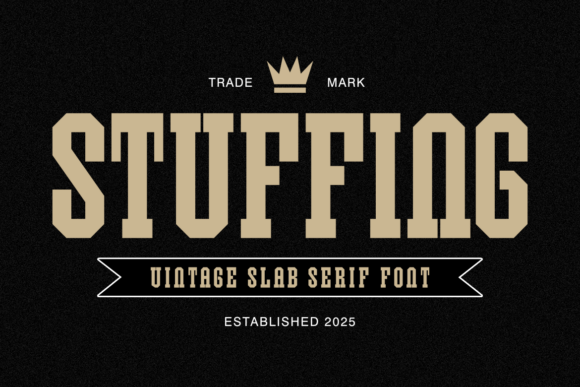
Stuffing: The Vintage Slab Serif Font Redefining Holiday and Brand Typography
In the vast landscape of digital typography, few typefaces manage to capture a specific era while remaining perpetually relevant across diverse industries. Stuffing is one such font. It is a robust Vintage Slab Serif that delivers a bold, authoritative presence with a distinctive retro flair. For designers, marketers, and creatives looking to make an immediate impact, understanding the unique characteristics and applications of this typeface is essential. Whether you are crafting a Thanksgiving T-shirt or designing a premium craft beer label, Stuffing offers a weighty structure reminiscent of classic college sports team lettering and traditional American signage.
The Anatomy of a Vintage Slab Serif
To truly appreciate the utility of Stuffing, one must first understand the category it inhabits. A slab serif, also known as an Egyptian font, is characterized by thick, block-like serifs—those small lines attached to the end of a stroke in a letter. Unlike the delicate, tapered serifs found in traditional fonts like Times New Roman, slab serifs are heavy and uniform. This gives them a sense of stability, strength, and permanence.
Stuffing takes these foundational principles and amplifies them. Its design features incredibly thick, powerful serifs and a condensed, weighty structure. When you look at the letters, they feel grounded and unshakeable. This visual weight is not just an aesthetic choice; it serves a functional purpose. In a crowded visual environment, such as a busy social media feed or a packed billboard, Stuffing demands attention. It cuts through the noise, ensuring that the message is read instantly and remembered.
Why "Vintage" Matters in Modern Design
The term "vintage" often conjures images of nostalgia, but in the context of modern graphic design, it represents authenticity. Consumers today are increasingly drawn to brands and products that feel established and genuine. They crave a connection to history and tradition. Stuffing taps into this psychological desire perfectly. Its old-school, impactful headline style evokes the golden age of American advertising and collegiate culture.
This isn't merely about copying the past; it is about leveraging the emotional resonance of historical design trends. When a brand uses a font like Stuffing, it signals reliability and heritage. It suggests that the product has been around for a long time, even if it was launched yesterday. This "crowned trade-mark style" gives projects a premium, established look that generic sans-serif fonts simply cannot achieve.
Mastering the Print-on-Demand Market
One of the most significant practical applications for Stuffing lies within the booming Print-on-Demand (POD) industry. The name "Stuffing" itself is a clever nod to high-demand seasonal niches, specifically Thanksgiving and holiday apparel. In the world of e-commerce, timing and relevance are everything. As autumn approaches, millions of shoppers search for family-themed apparel, humorous dinner shirts, and festive gifts.
Designers who utilize Stuffing for these projects gain a distinct advantage. The font's playful yet sturdy nature makes it perfect for creating fun, family-themed designs. Imagine a T-shirt that reads "MOM'S STUFFING IS THE BEST" in this bold typeface. The heavy lettering conveys confidence and humor simultaneously. It feels like a classic slogan from a decades-old family tradition, which is exactly the vibe customers are seeking during the holidays.
- Seasonal Relevance: The name immediately triggers associations with food and celebration, making it an intuitive choice for holiday campaigns.
- Readability on Fabric: Because the strokes are thick, the text remains legible even when printed on textured fabrics like cotton blends or fleece hoodies.
- Versatility: While perfect for Thanksgiving, the font works equally well for Halloween ("Spooky Season"), Christmas, and general autumn aesthetics.
Beyond the Holidays: Commercial and Branding Applications
While its name suggests a seasonal focus, limiting Stuffing to holiday designs would be a mistake. Its exceptional versatility makes it an indispensable tool for a wide array of commercial projects. The font's authoritative presence translates beautifully into branding for businesses that want to project strength and tradition.
Craft Beverages and Culinary Labels
The craft beer and liquor industry relies heavily on packaging that tells a story. Labels need to stand out on shelves lined with competitors. Stuffing is an exceptional choice for these labels because it mimics the typography found on classic bottle caps and vintage bar signs. A stout beer named "Midnight Stout" or a spicy hot sauce labeled "Devil's Kick" gains instant credibility when presented in this typeface. It suggests a recipe passed down through generations, enhancing the perceived value of the product.
Sports Merchandise and Team Lettering
As mentioned earlier, the font is reminiscent of classic college sports team lettering. This makes it ideal for independent sports leagues, local gyms, and fitness brands. If you are designing merchandise for a local football team or a marathon running club, Stuffing provides that authentic athletic aesthetic. It captures the spirit of competition and camaraderie without needing to infringe on trademarked university logos. The boldness of the font mirrors the energy and physicality of sports, making it a natural fit for jerseys, banners, and event posters.
By understanding the unique qualities of this Vintage Slab Serif, designers can create work that resonates deeply with audiences. It bridges the gap between the old-world charm of traditional American signage and the dynamic needs of modern commerce. Whether you are a seasoned professional looking to expand your typographic toolkit or a beginner eager to make your first impactful design, Stuffing offers the perfect blend of heritage appeal and contemporary utility. Embrace its bold presence, and let your designs speak with the confidence of a classic.